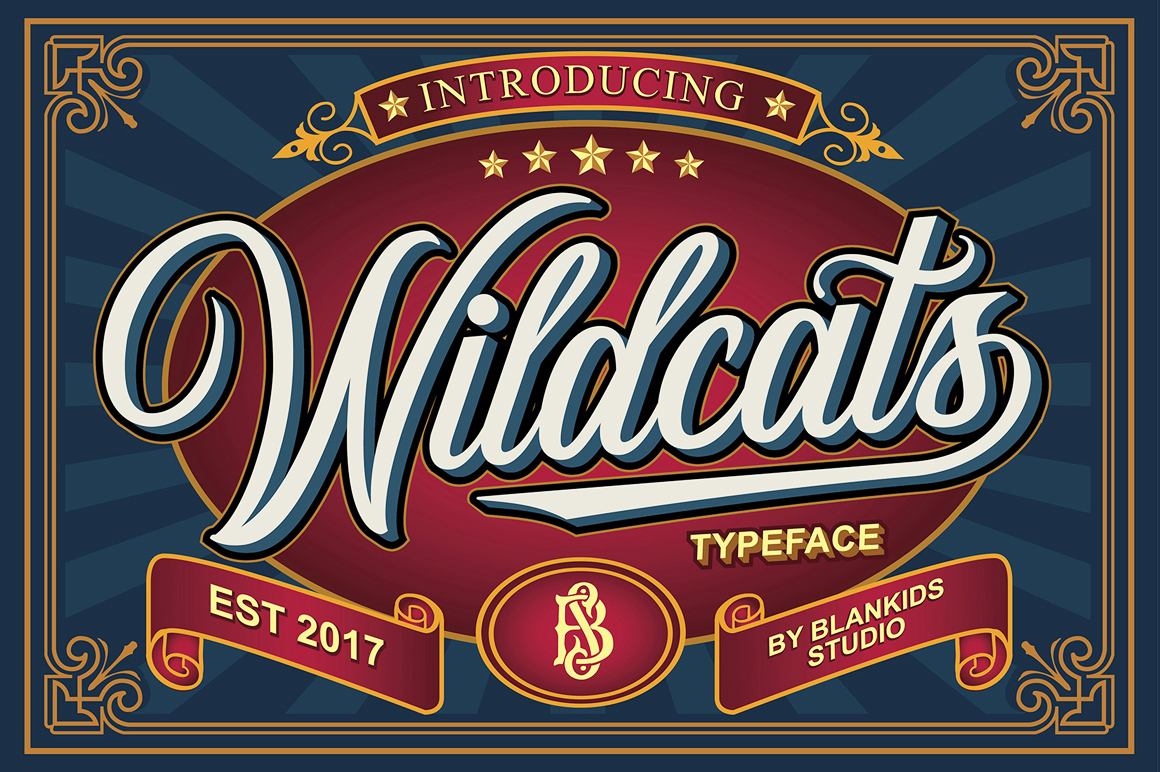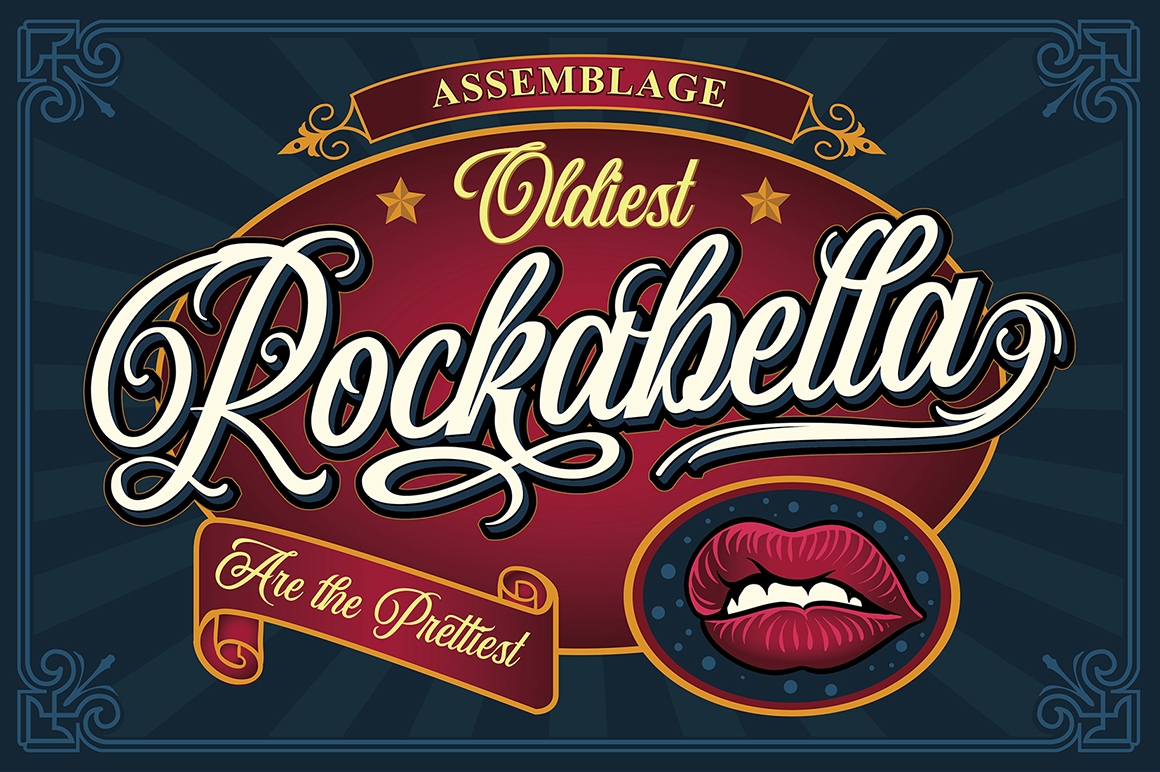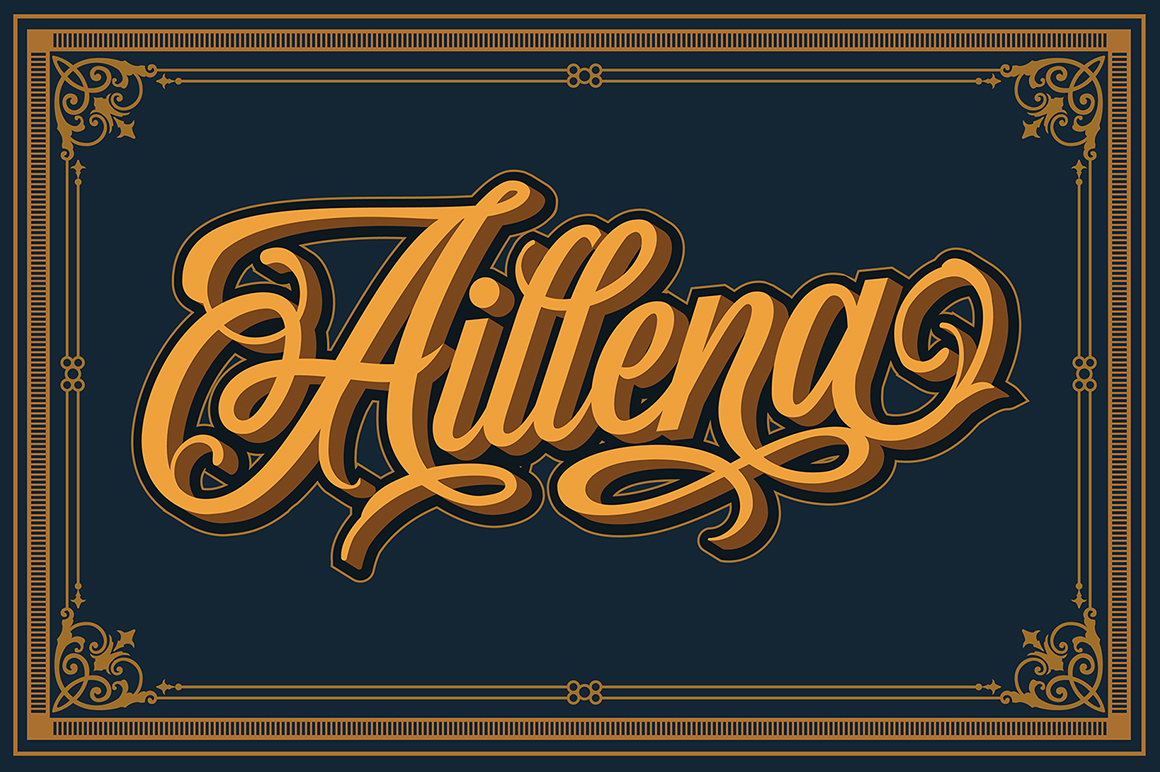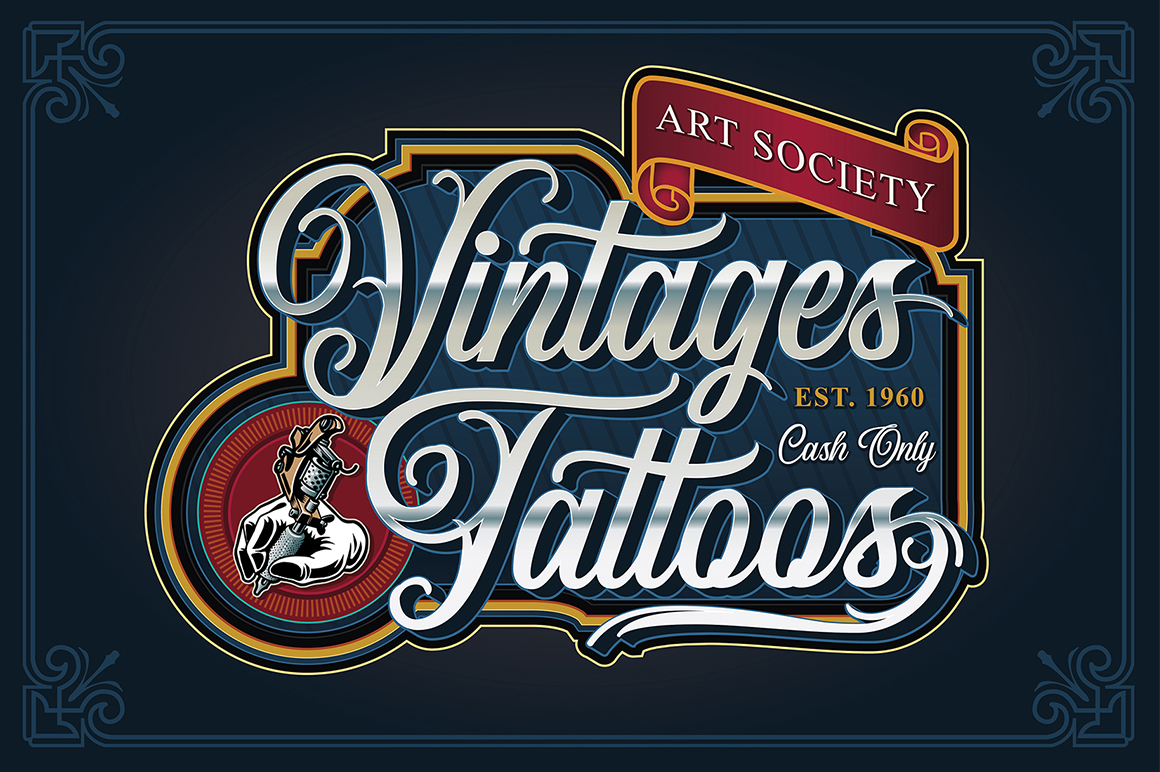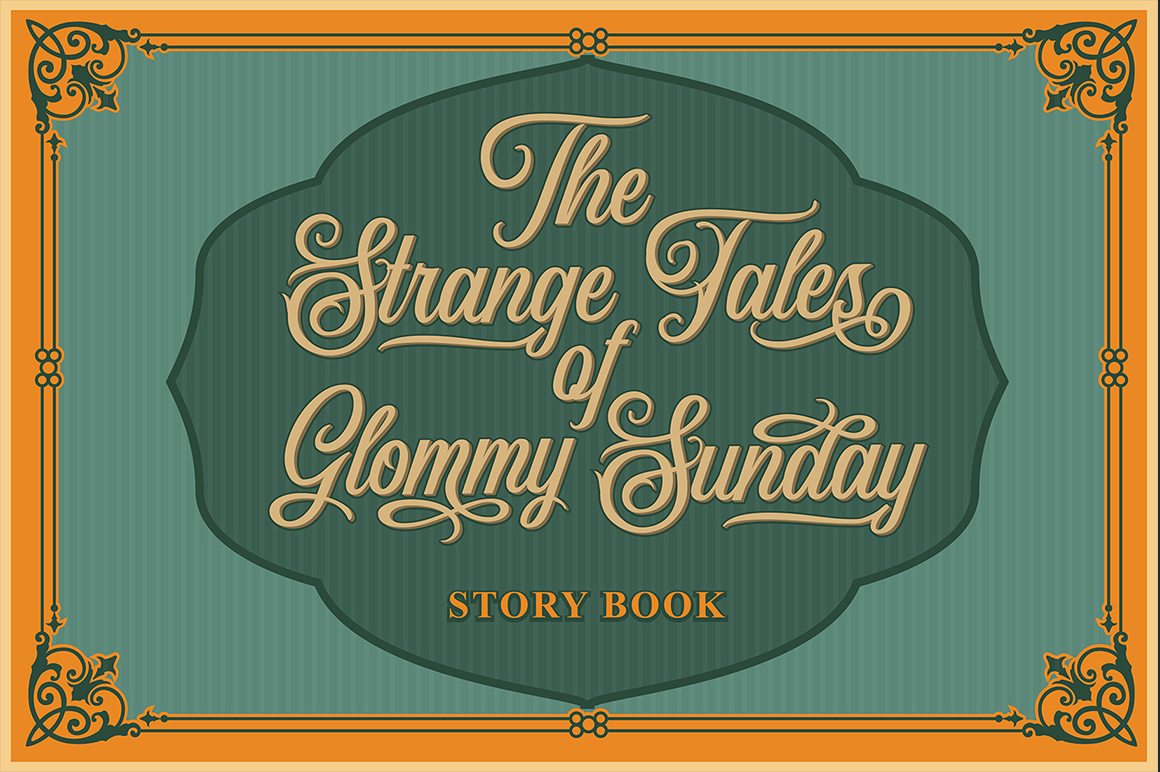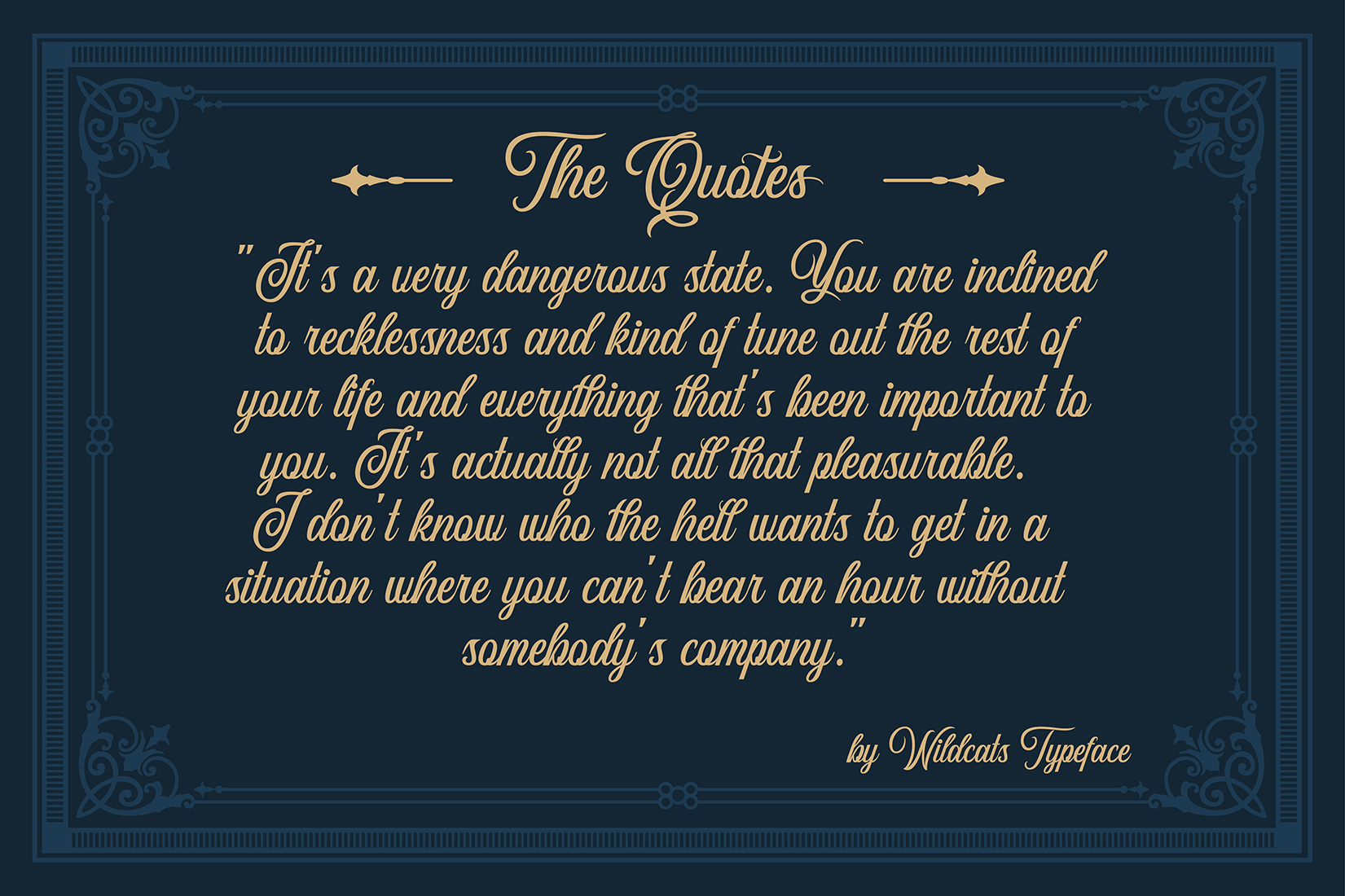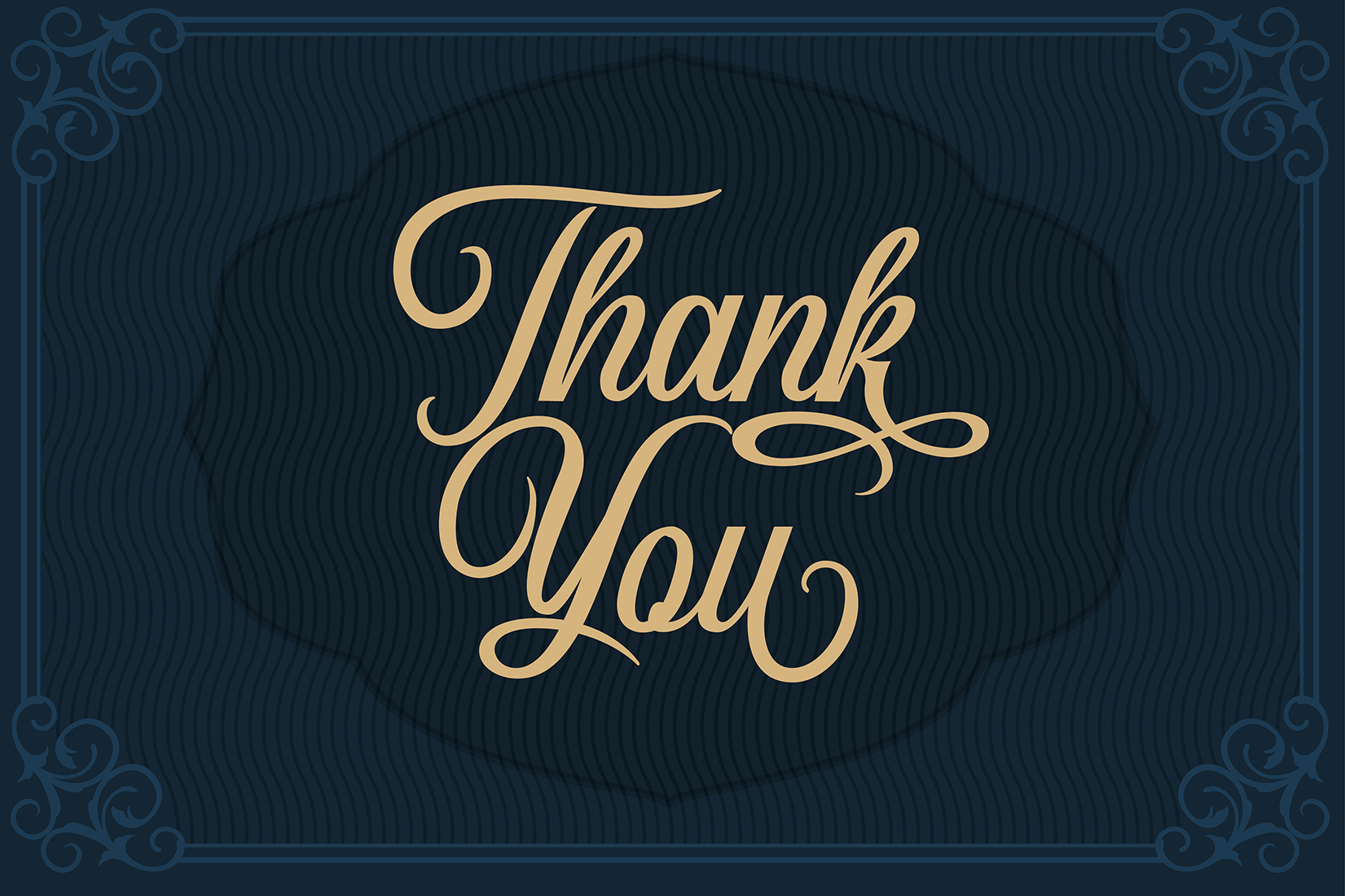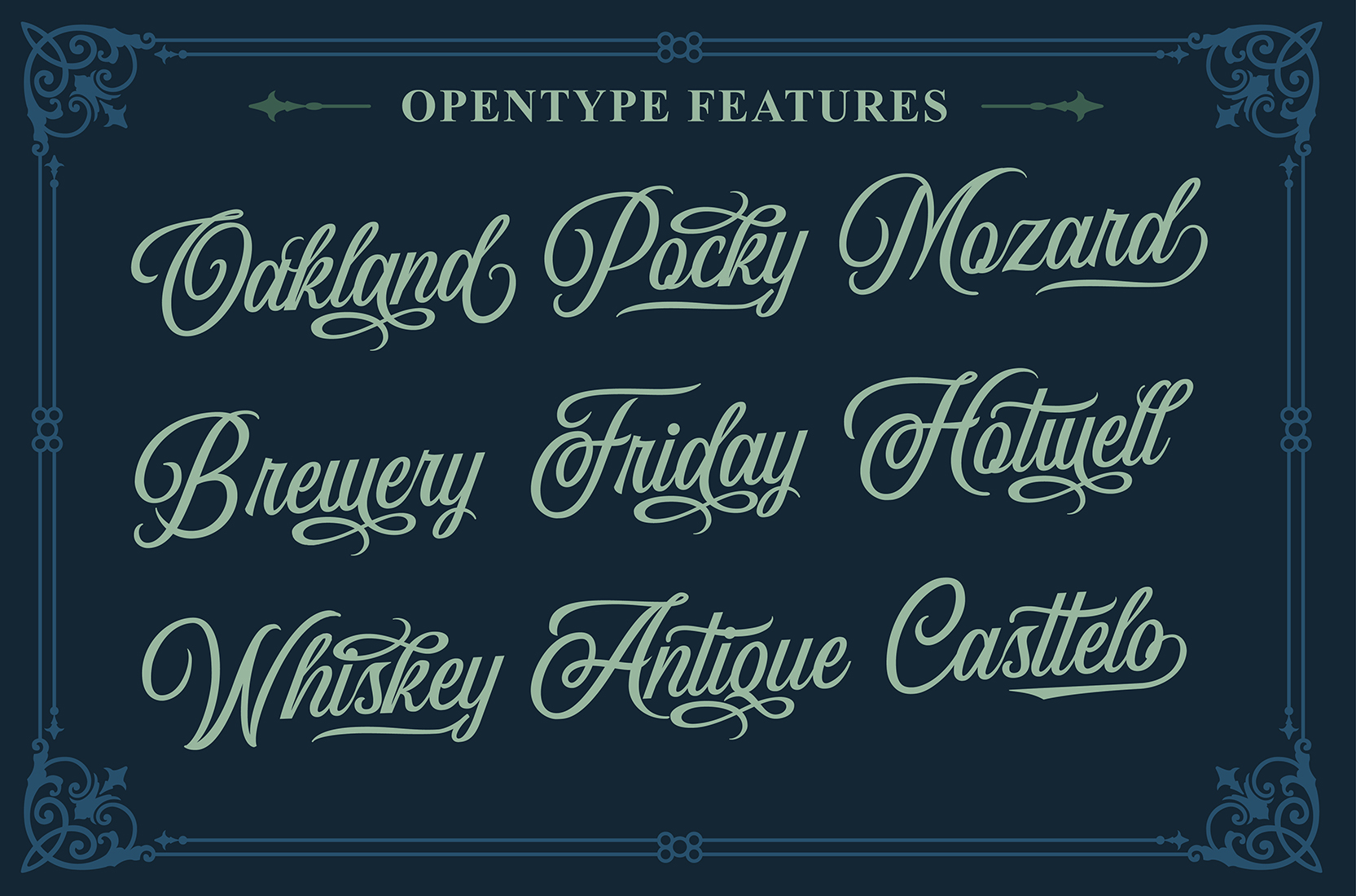
Wildcats Font
About Wildcats Font
Wildcats is a vintage and seductive calligraphy font. Inspired by vintage labels, signage, and packages, Wildcats is ideal for similar design ideas but can enhance different designs due to its versatility and charm.